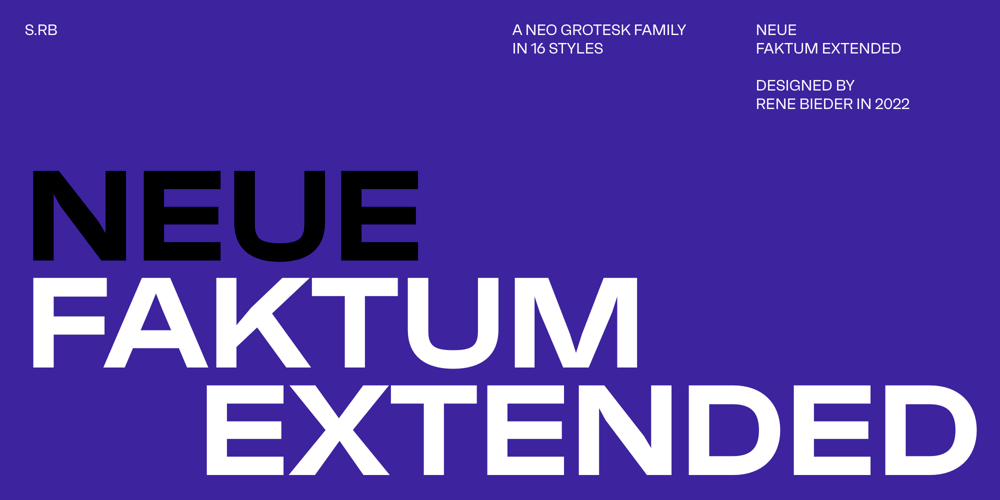
Neue Faktum Extended
Neue Faktum Extended font
Neue Faktum Extended Font Family was designed by René Bieder and published by René Bieder. Neue Faktum Extended contains 16 styles and family package options. When Bieder embarked on the design journey of Faktum font, he found himself captivated by the intricate shapes of Mid-century modern furniture. The juxtaposition of rounded contours and angular features intrigued him profoundly. Faktum, in essence, is a testament to these contradictions, gracefully striking a delicate balance between the organic and the mechanical. It seamlessly blends the familiarity of traditional design with unexpected and uncommon elements, resulting in a harmonious and unified typographic creation. Just like the captivating Mid-century furniture, Faktum embodies the essence of timeless elegance and innovation.